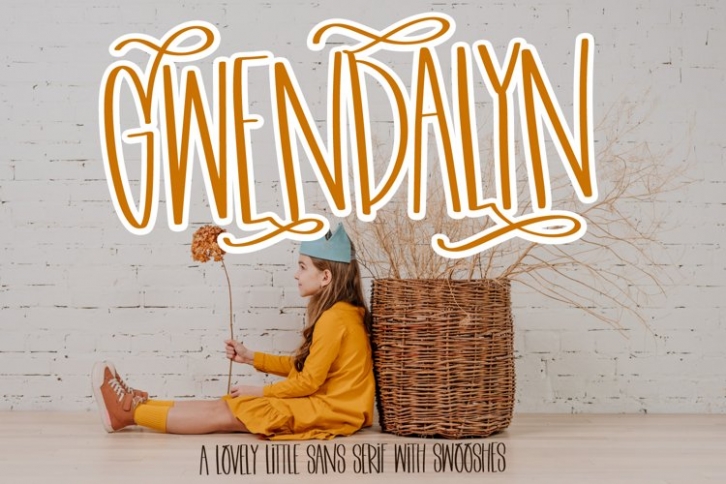
Gwendalyn is a trendy and unique font with an authentic style. It was designed by plusstore and it's a great choice for creative people who need such a font. It was released on December 31, 2021 and the file size is 8.48 MB. Gwendalyn will add an organic vibe to any design idea!